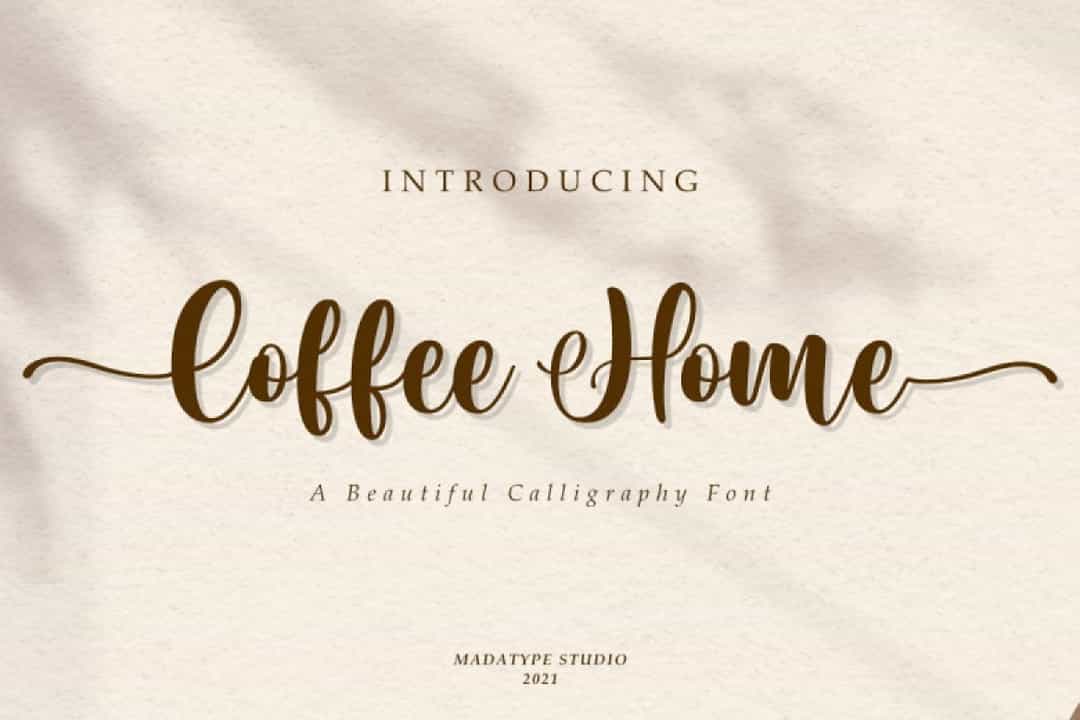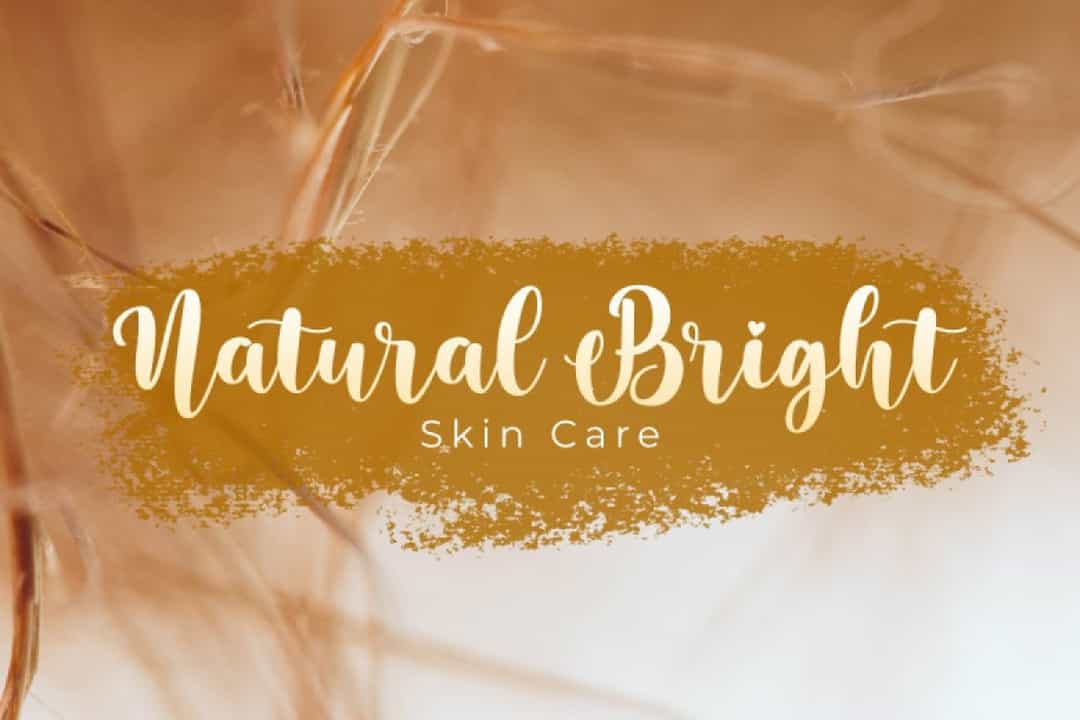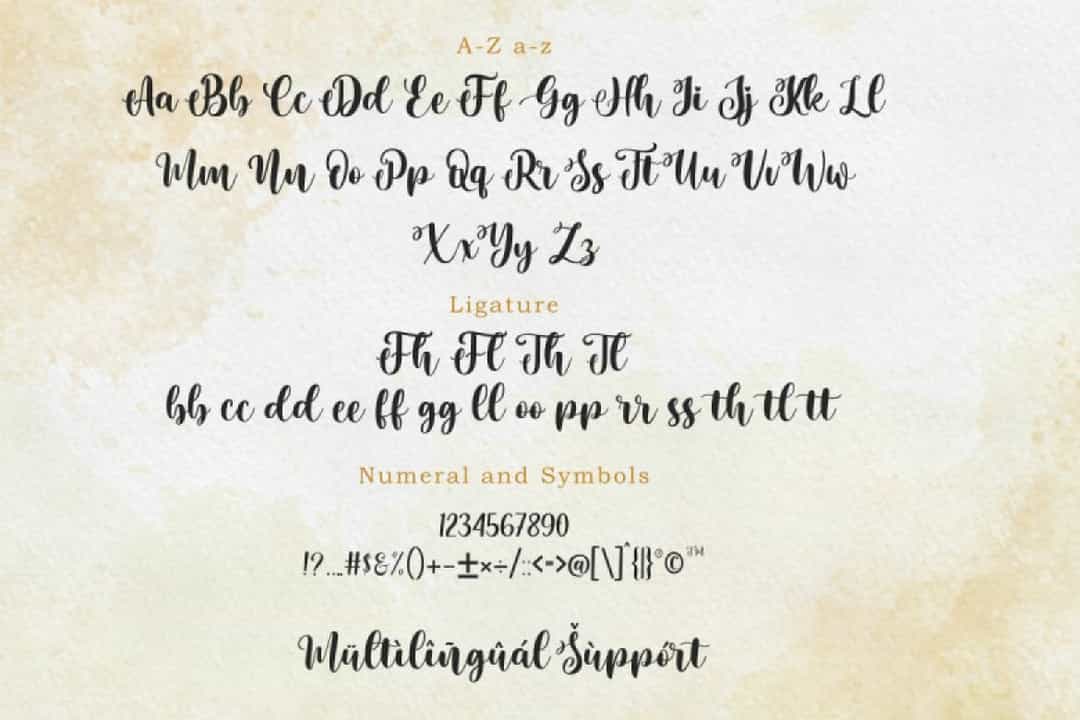
Coffee Home Font is an exquisite handwritten script type for calligraphy that boasts modern style while remaining inspired by classical timeless calligraphy. PUA encoded, you have easy access to all the glyphs and swashes you desire!